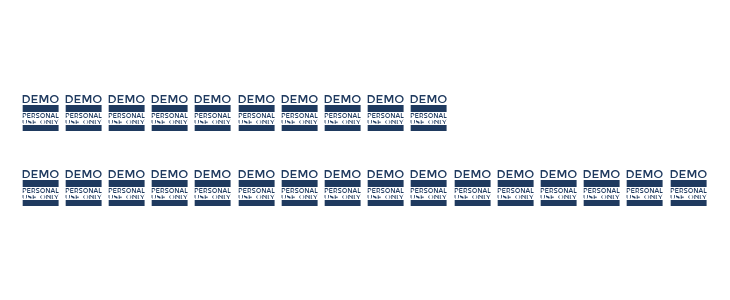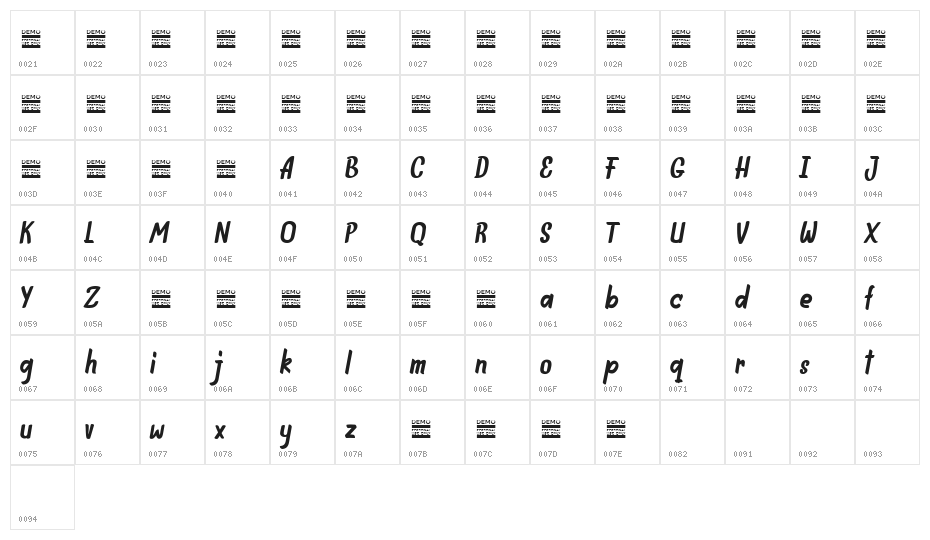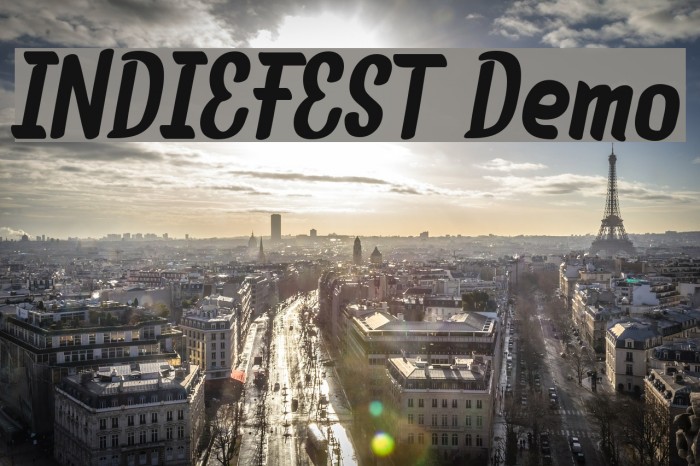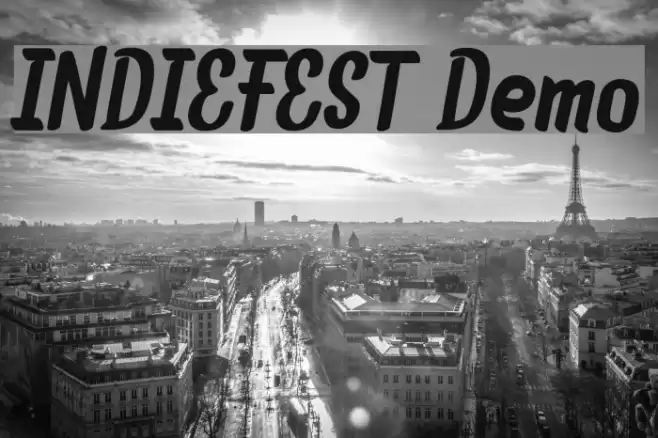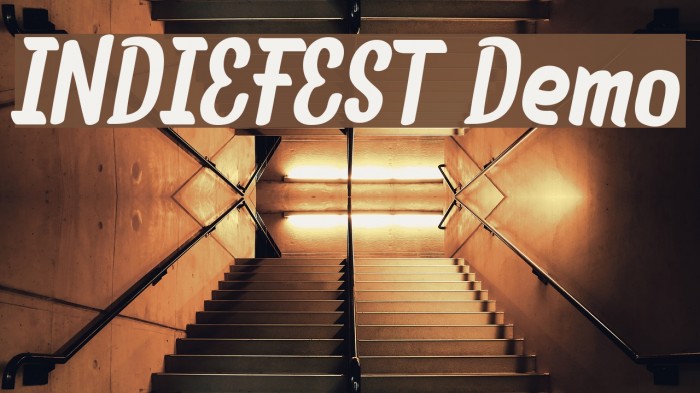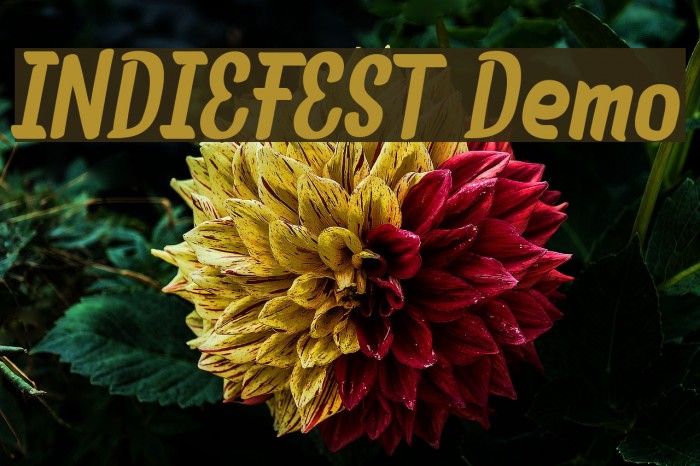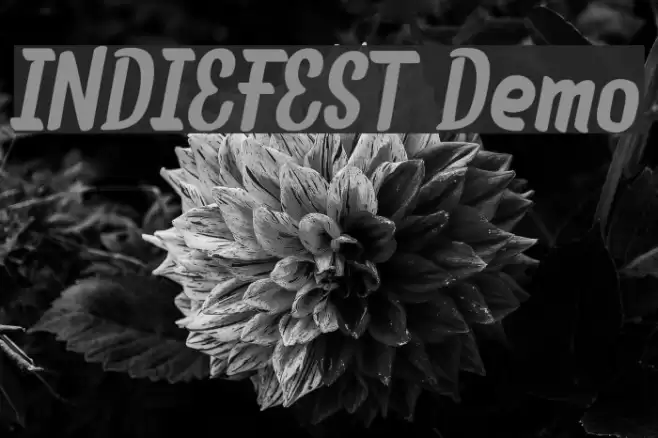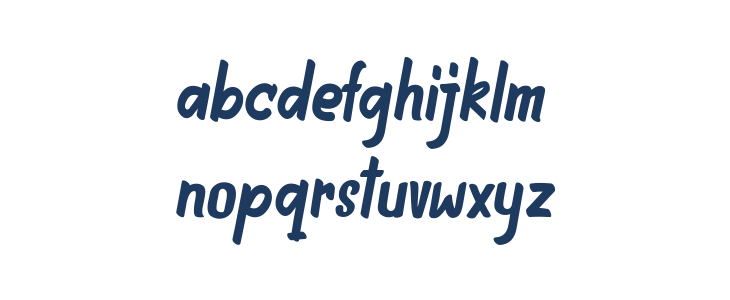
INDIEFEST Demo Font
INDIEFEST Demo Description
This font features a bold and dynamic script style with a modern flair. The uppercase letters are slightly slanted, giving a sense of movement and energy, while the lowercase letters maintain a consistent flow with smooth curves and rounded edges. The overall appearance is casual yet stylish, making it suitable for a variety of creative applications. The characters are well-spaced, ensuring readability while maintaining the font's unique personality. The font's bold weight and medium contrast in stroke thickness add to its visual impact, making it a great choice for eye-catching designs.
| Proposed Projects | Ideal for branding, logos, posters, and social media graphics where a lively and modern touch is desired. |